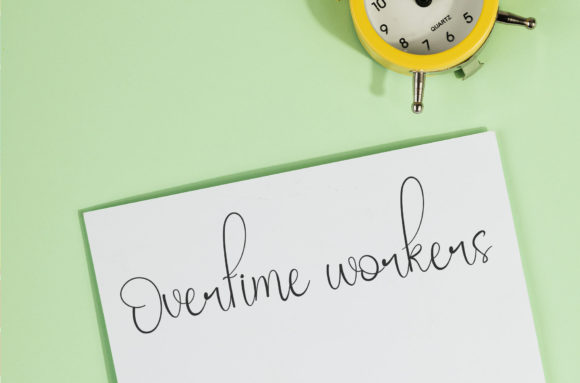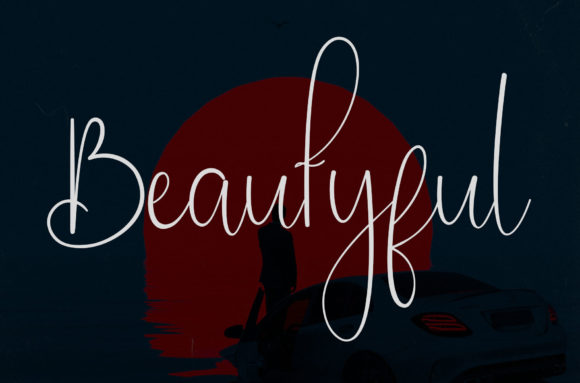
Rinjani Font
db-ku.com - Script & Handwritten -- Rinjani is a beautiful handwritten font, great for weddings, branding titles, books, social media posts and more.